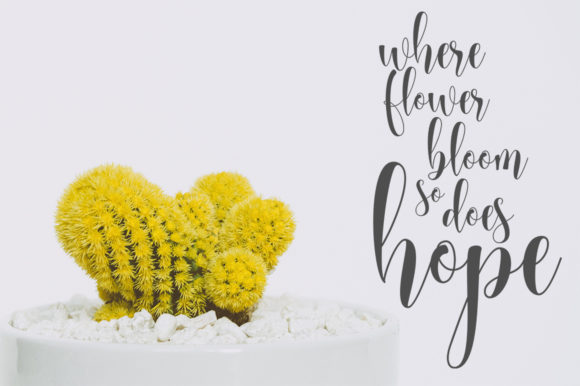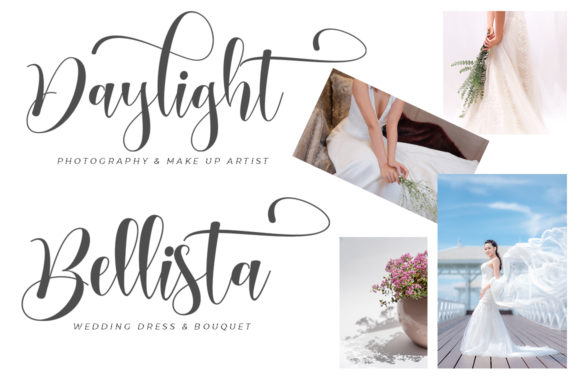
Babylove Font
db-ku.com - Script & Handwritten -- Babylove is cute and whimsical, but also casual. This versatile display font has a wide range of applications ranging from greeting cards to stunning calligraphy art and is guaranteed to add a personal touch to your next design.